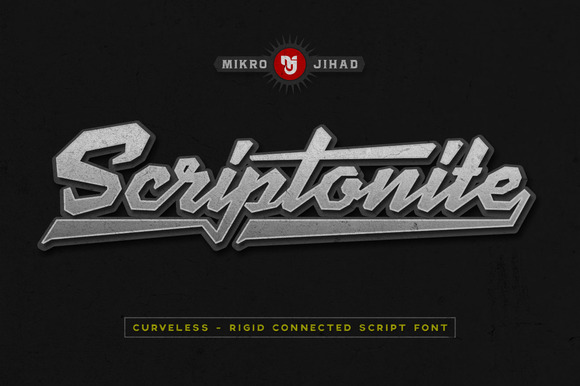
Welcome to the realm of Scriptonite, a script font crafted from the very essence of rigidity and endless curves. Its lineage traces back to the iconic "S" emblem of Superman, a symbol of strength, masculinity, and unwavering uniqueness. Scriptonite is not just a font; it's a gateway to unleashing the power of words, transforming them into visual masterpieces that command attention and leave an indelible mark.
Immerse yourself in the world of Scriptonite, where sharp angles and sinuous lines dance in perfect harmony. Experience the thrill of crafting designs that exude unwavering confidence and distinctive style. From branding projects that demand attention to captivating social media posts that ignite engagement, Scriptonite is your weapon of choice.
Unleash your creativity and let Scriptonite's bold strokes paint a picture of power and masculinity. Scriptonite is a font that defies boundaries, a font that refuses to be confined to the ordinary. It's a font that speaks volumes without uttering a single word. Are you ready to embark on a typographic adventure that will redefine your design horizons?
Be it a poster that demands attention, a logo that exudes strength, or a website that oozes sophistication, Scriptonite is your ultimate companion. Its rigid curves and sharp angles will transform your designs into visual symphonies that resonate with power and leave a lasting impression.
So, why settle for ordinary when you can embrace the extraordinary? Let Scriptonite take center stage and witness the magic unfold. Welcome to the world of Scriptonite, where fonts take on a life of their own and words become visual masterpieces that ignite the imagination.